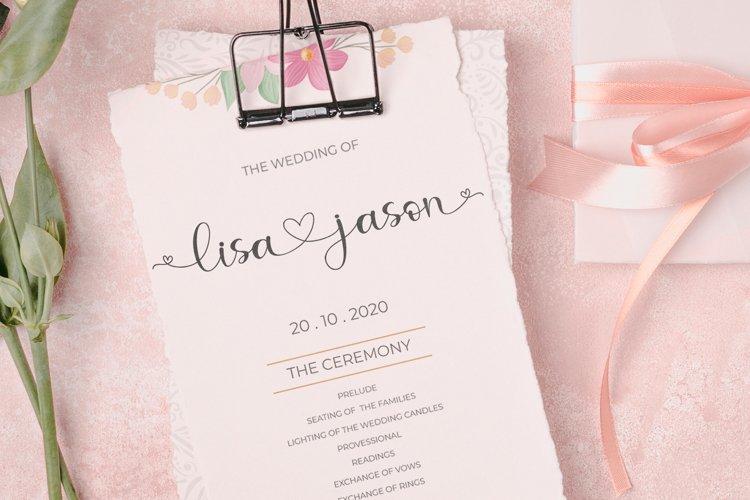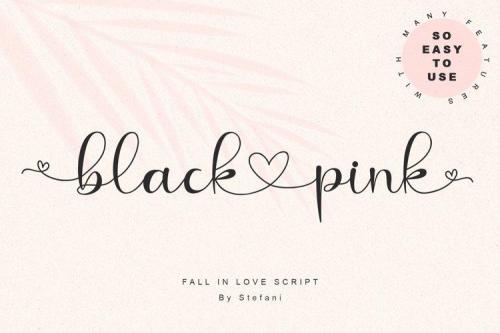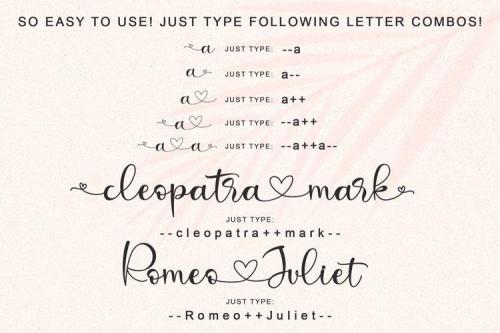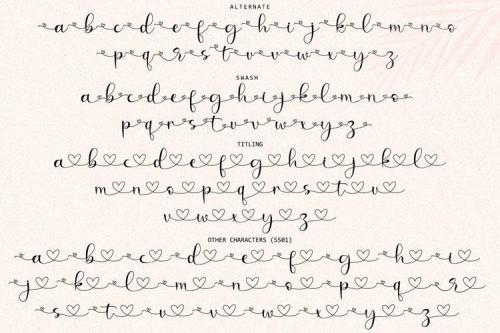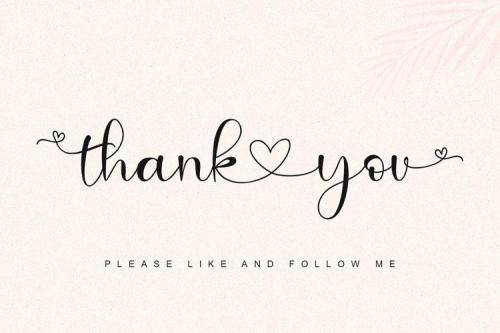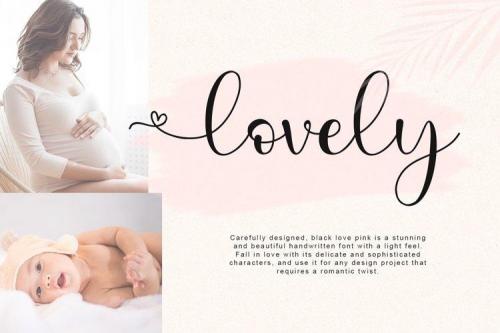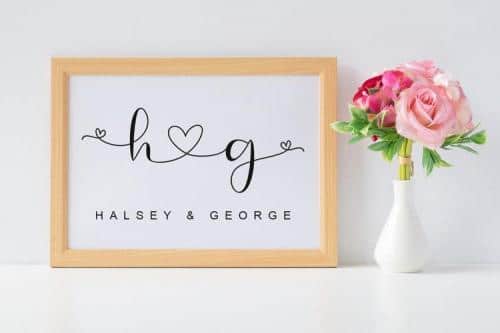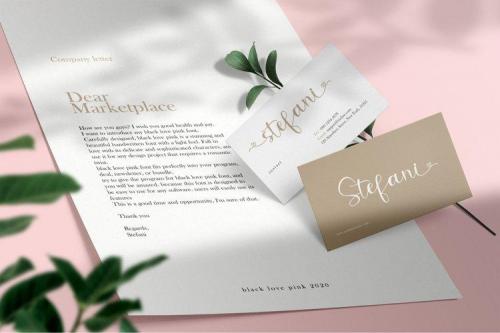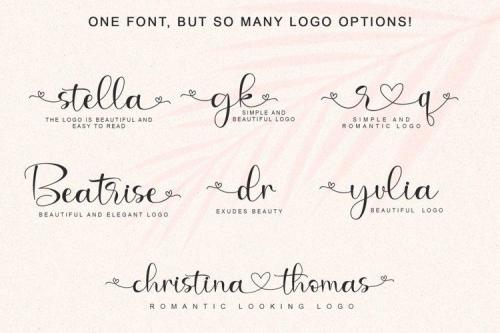
Carefully designed, Black Love Pink is a stunning and beautiful handwritten font with a light feel. Fall in love with its delicate and sophisticated characters, and use it for any design project that requires a romantic twist.
This font is easy to use. it remains only to add symbols (–,++,–) in front, middle, and back to reveal the features. This font is PUA encoded which means you can access all of the glyphs and swashes with ease! It features a varying baseline, gorgeous glyphs, and stunning alternates.
- Designer: Stefani Letter